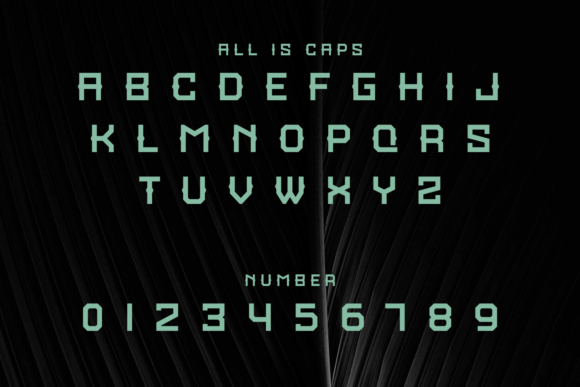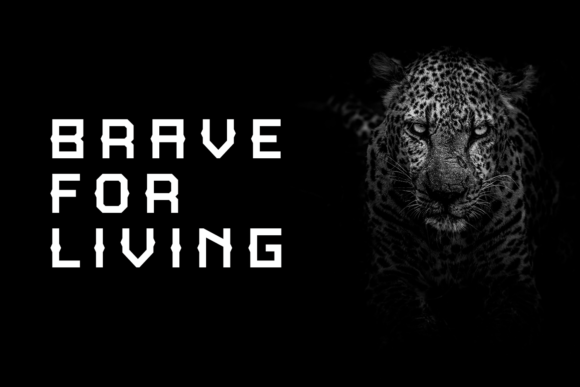
Bahkire Font: The Funky and Cool Display Font for Creative Projects
Are you tired of using the same old boring fonts in your creative projects? Look no further than Bahkire Font, a funky and cool display font that’s sure to add a touch of excitement to your designs. With its unique and eye-catching style, Bahkire Font is perfect for designers and crafters looking to make a statement.
What is Bahkire Font?
Bahkire Font is a display font that’s designed to make a bold impression. Its funky and cool style is perfect for headlines, titles, and other design elements where you want to grab attention. The font is carefully crafted to ensure that it’s both visually appealing and highly legible, making it easy to read and understand.
Key Features of Bahkire Font
- Unique and eye-catching style: Bahkire Font has a distinctive style that’s sure to set your designs apart from the crowd.
- Highly legible: Despite its bold and funky style, Bahkire Font is carefully designed to ensure that it’s easy to read and understand.
- Perfect for display text: Bahkire Font is ideal for headlines, titles, and other display text where you want to make a bold impression.
Benefits of Using Bahkire Font
So why should you choose Bahkire Font for your creative projects? Here are just a few benefits of using this amazing font:
- Adds a touch of excitement: Bahkire Font is sure to add a touch of excitement and energy to your designs, making them more engaging and attention-grabbing.
- Helps you stand out: With its unique and eye-catching style, Bahkire Font can help you stand out from the crowd and establish your brand identity.
- Perfect for creative projects: Bahkire Font is ideal for a wide range of creative projects, from graphic design and branding to crafting and DIY projects.
- Easy to pair with other fonts: Bahkire Font is easy to pair with other fonts, making it simple to create a cohesive and visually appealing design.
Tips and Tricks for Getting the Most Out of Bahkire Font
Here are a few tips and tricks to help you get the most out of Bahkire Font:
- Use it sparingly: Bahkire Font is a bold and attention-grabbing font, so use it sparingly to avoid overwhelming your design.
- Pair it with other fonts: Experiment with pairing Bahkire Font with other fonts to create a unique and visually appealing design.
- Play with color and texture: Add an extra layer of interest to your design by experimenting with different colors and textures.
- Experiment with different sizes: Try out different font sizes to see how Bahkire Font looks in different contexts.
In conclusion, Bahkire Font is a funky and cool display font that’s perfect for designers and crafters looking to add a touch of excitement to their creative projects. With its unique and eye-catching style, highly legible design, and ease of use, Bahkire Font is an excellent choice for anyone looking to make a bold impression. So why not give it a try and see the amazing results for yourself?